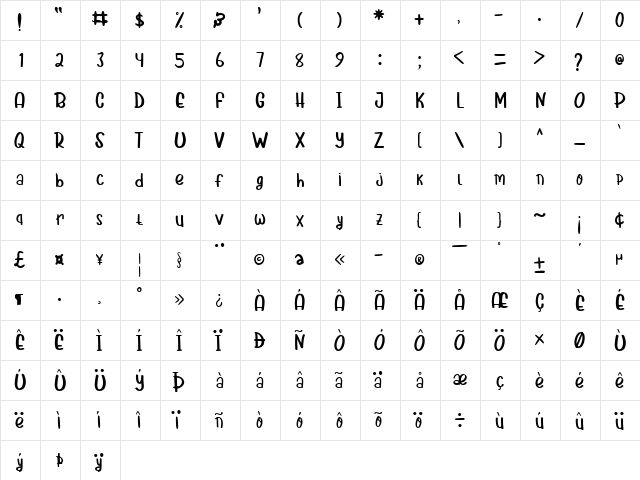
Mix Berries Regular
| Designer | Fajar Wicaksono |
Design Context for Mix Berries Typeface
Mix Berries is a composed and adaptable typeface that performs quietly and consistently across a wide range of design contexts.